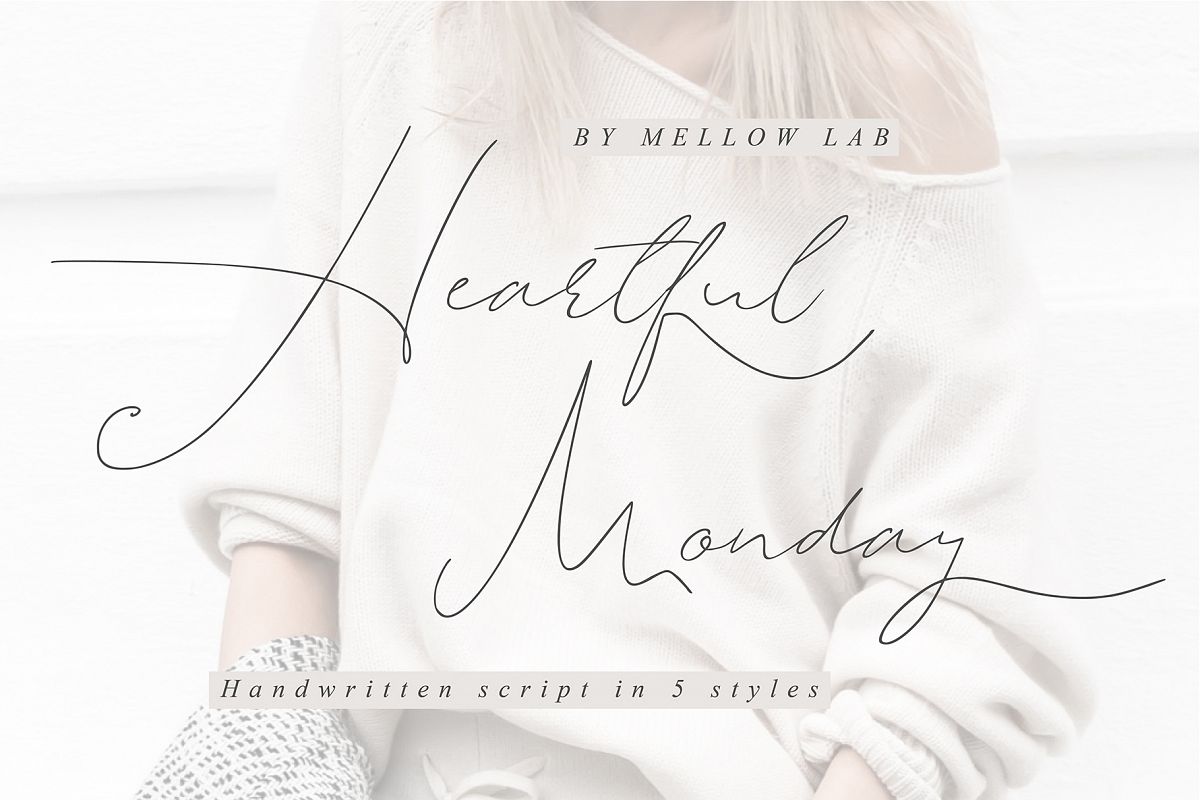
Heartful Monday
This font is especially for you if you need to add tenderness to your project. Combine it with other fonts and add style in your project.
This handwritten font is ideal for branding and decorate your any project.This font are perfect for wedding invitation or your blog. Also with their help, you can create a logo or beautiful frame for your home. Or just use for your small business, book covers, stationery, marketing, magazines and more.
Heartful Monday